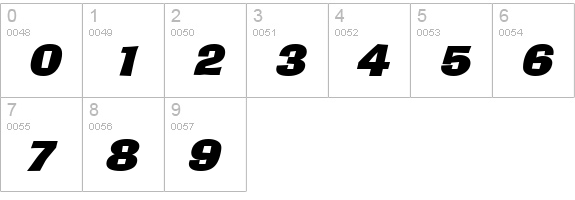
Alor Wide BoldItalic Font Details
Alor Wide BoldItalic is a distinctive, extended-width variant in the Alor typeface family \xE2\x80\x94 well suited to design and typography projects.
Alor Wide BoldItalic font is a modern and stylish typeface that exudes confidence and sophistication. With its bold and italic design, this font is perfect for making a statement and standing out in any design project. The sleek and elegant curves of the letters add a touch of elegance, while the wide spacing provides a sense of openness and clarity. What sets Alor Wide BoldItalic font apart is that it is available for free download at FontsMarket.com. This means that you can easily access this high-quality font without any cost, making it a valuable addition to your font collection. Whether you are designing a website, creating a logo, or working on a print project, Alor Wide BoldItalic font is sure to elevate your design and leave a lasting impression on your audience. Download this font today and unleash your creativity with its bold and dynamic style.